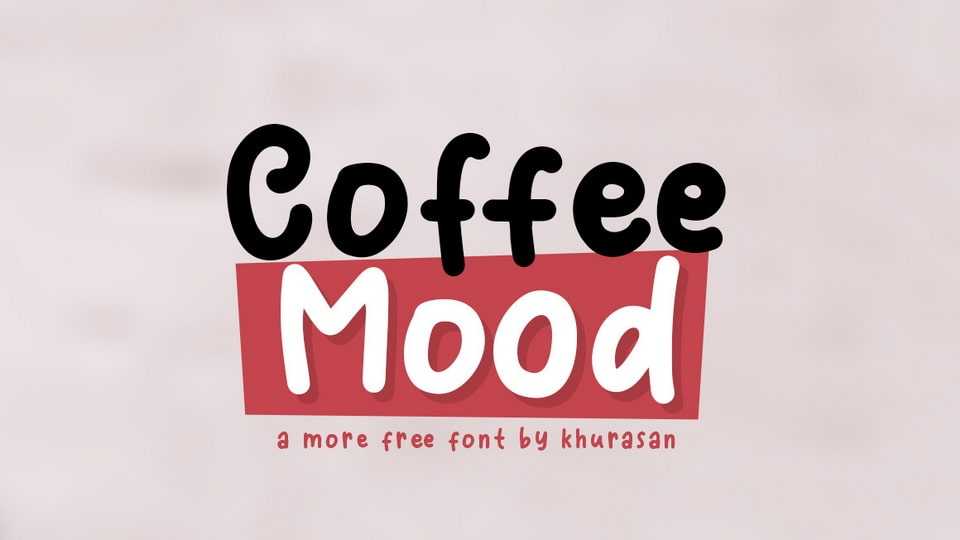
Download Coffee Mood font, a simple and natural handwritten typeface. Coffee Mood is perfect for posters, logos, magazines, book covers, banners, and many more lovely designs.